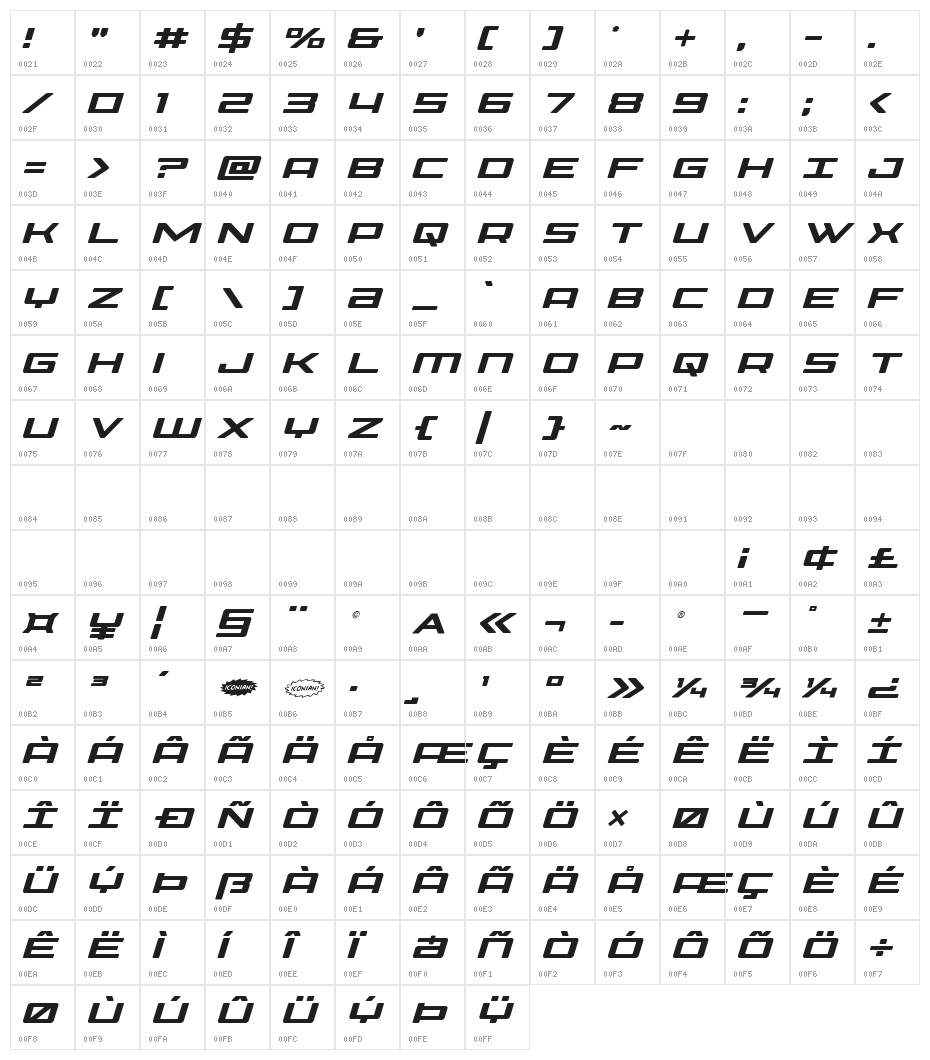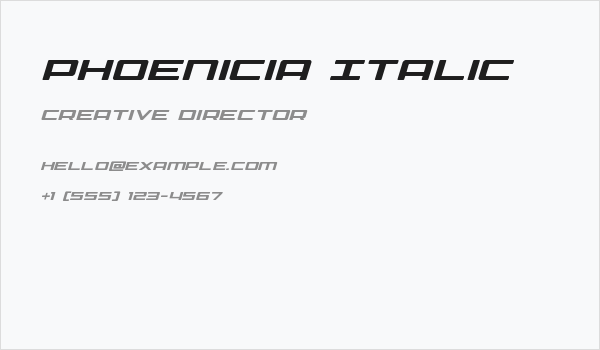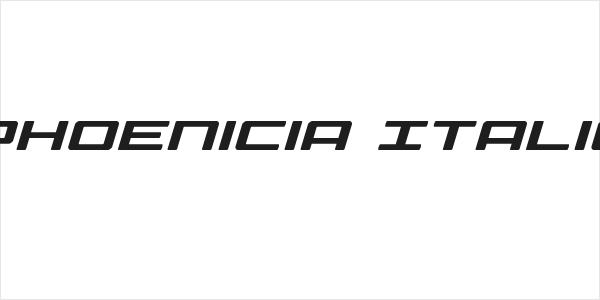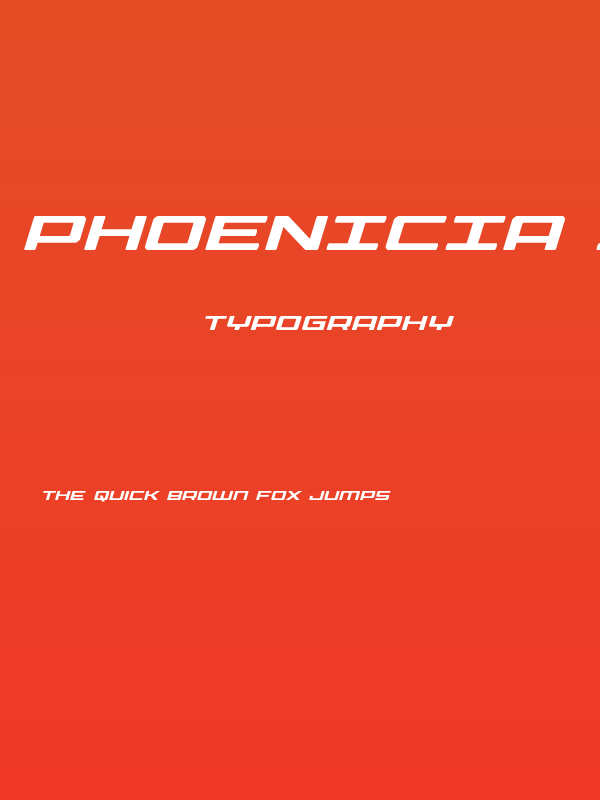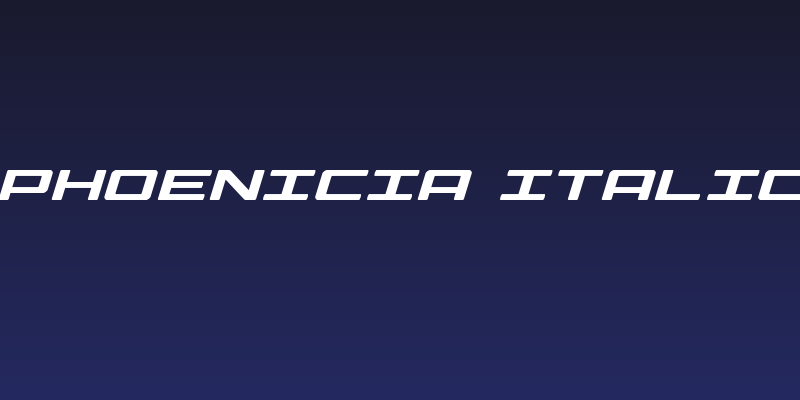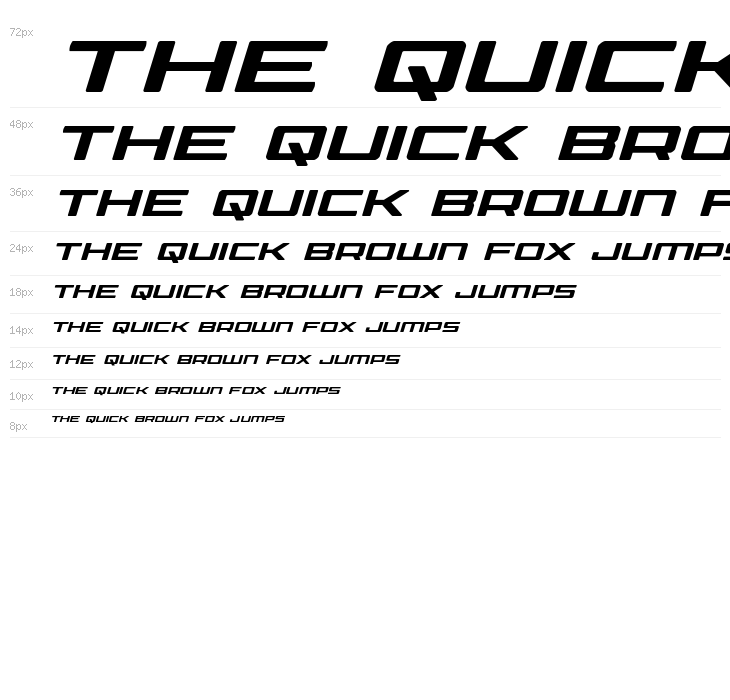
Phoenicia Italic Font
Phoenicia Italic Description
This font exhibits a sleek, italicized style with a modern and futuristic appeal. The characters are slightly slanted, giving a sense of motion and dynamism. The strokes are consistent in thickness, providing a uniform appearance across all characters. The design is clean and geometric, with sharp angles and straight lines that enhance its contemporary look. The spacing between characters is balanced, ensuring readability while maintaining its distinctive style. This font is versatile, suitable for various applications where a modern and energetic feel is desired.
| Proposed Projects | Ideal for tech branding, sports team logos, futuristic posters, and dynamic web design. |